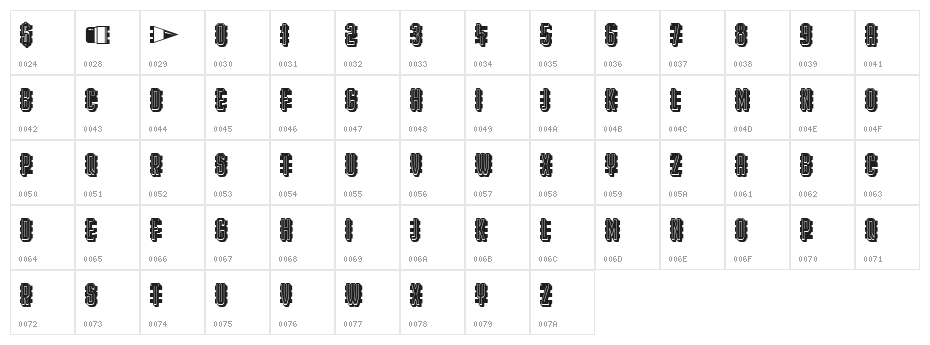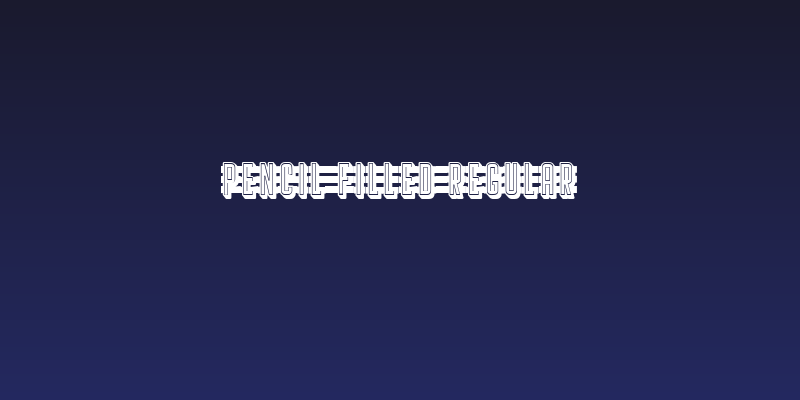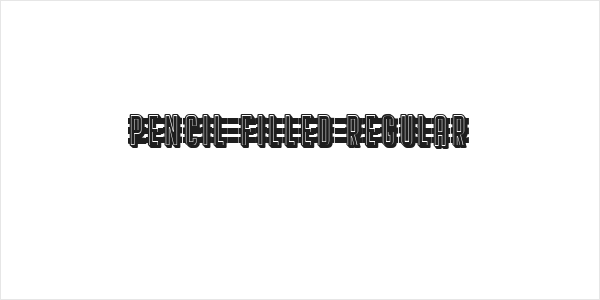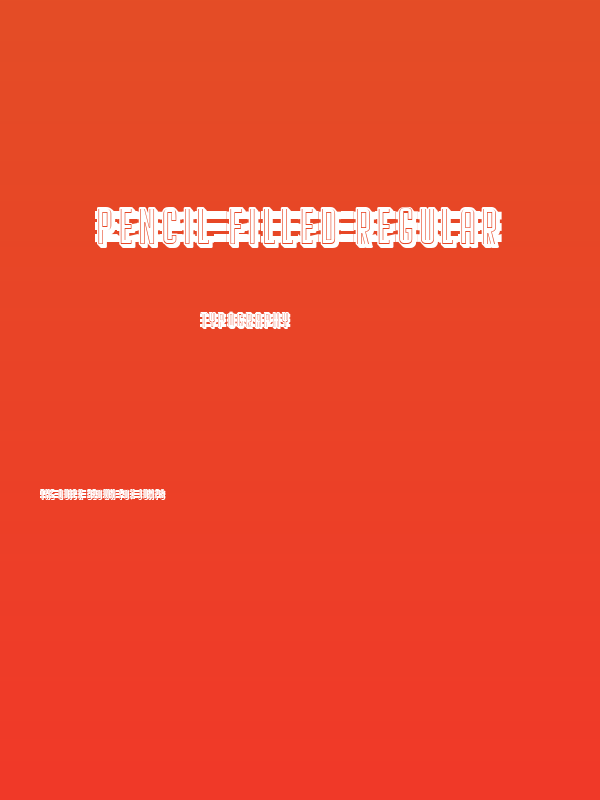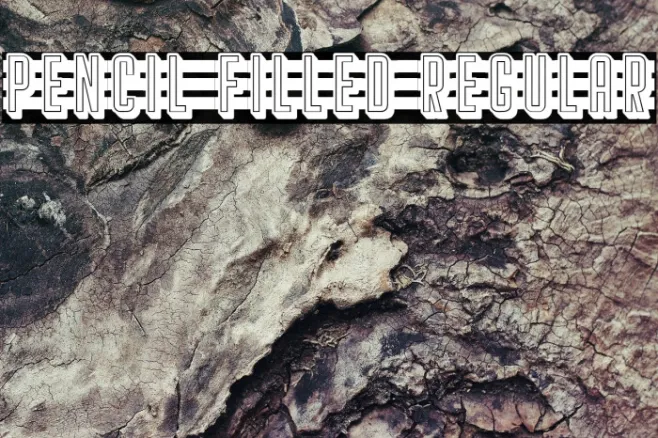
Pencil Filled Regular Font
Pencil Filled Regular Description
This font features a bold, decorative style with a unique pencil-like fill within each character. The letters are outlined with a thick border, giving them a three-dimensional appearance. The design is playful and creative, making it stand out with its intricate detailing. The characters are evenly spaced, ensuring readability despite the complex design. This font is ideal for projects that require a fun and engaging visual element, such as children's books, educational materials, or creative branding. The numbers and special characters maintain the same stylistic approach, ensuring consistency across all text elements.
| Proposed Projects | Ideal for children's books, educational materials, creative branding, and playful designs. |